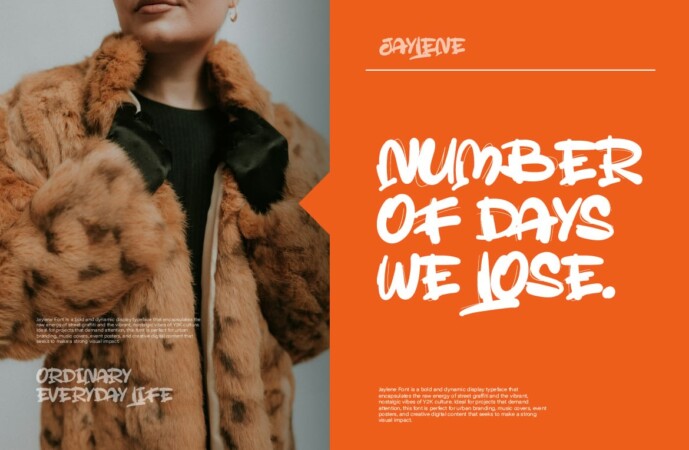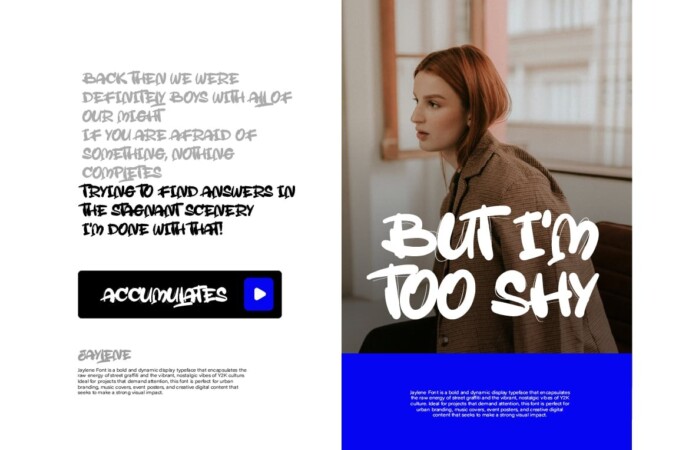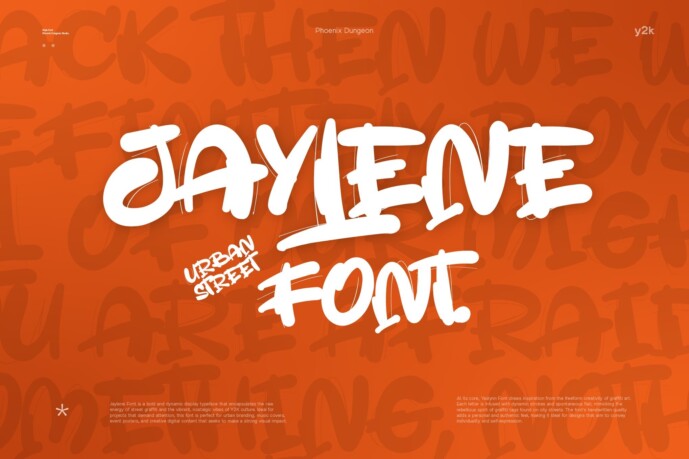
Jaylene Font
Jaylene Font is a bold and dynamic display font that embodies the raw energy of street graffiti and the vibrant, nostalgic vibe of Y2K culture. Ideal for projects that demand attention, this font is perfect for urban branding, music covers, event posters, and creative digital content that seeks to make a strong visual impact.